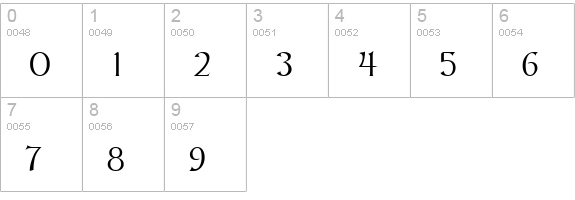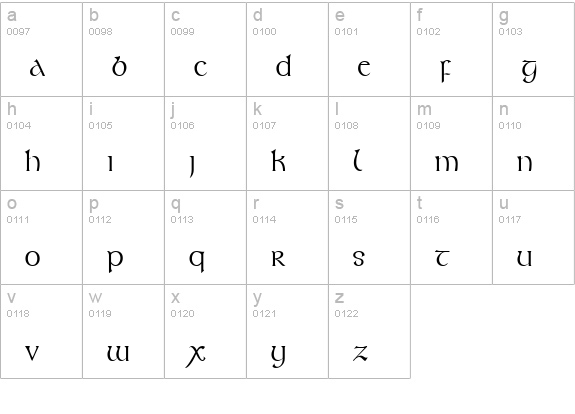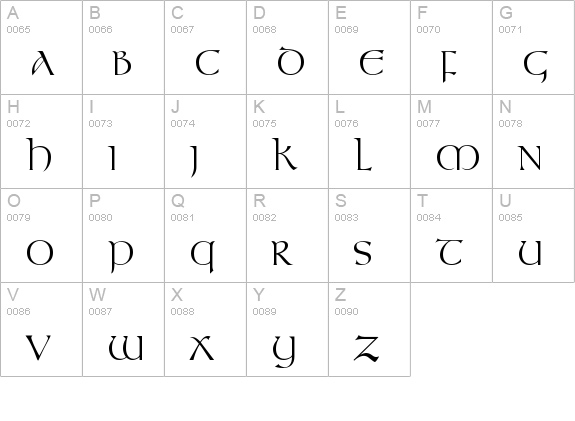
Kelt Normal is the standard, neutral variant in the Kelt typeface family \xE2\x80\x94 well suited to general body text, paragraphs, and standard typographic work.
Kelt Normal font is a versatile and elegant typeface that exudes a sense of sophistication and modernity. Its clean and sharp lines make it perfect for a wide range of design projects, whether it's for branding, advertising, or editorial purposes. This font features a unique combination of classic and contemporary design elements, resulting in a truly timeless and eye-catching typeface. The bold and confident letterforms make a powerful statement, while the subtle curves and refined details add a touch of elegance. Kelt Normal font is not only visually appealing but also highly legible, ensuring that your message is effectively communicated to your audience. Its balanced proportions and consistent spacing make it easy to read, even at smaller sizes. One of the best things about Kelt Normal font is that it is freely available to download at FontsMarket.com. This means that you can easily access and use this stunning font in your projects without any cost or restrictions. Whether you're a professional designer or a typography enthusiast, Kelt Normal font is a valuable addition to your font collection. With its combination of beauty, versatility, and the fact that it is free to download, Kelt Normal font is truly a must-have for anyone looking to elevate their design work to the next level. So don't miss out on this incredible opportunity, head over to FontsMarket.com and get your hands on Kelt Normal font today.